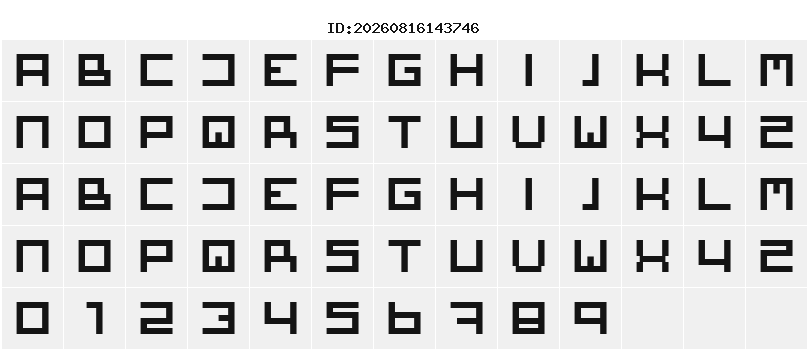
Square One Preview
• Font Name: Square One
• Full Font Name: Square One
• Designer: David Kerkhoff
• Manufacturer: David Kerkhoff
About Square One.ttf
Square One.ttf is a modern, elegant sans-serif font designed for ultimate readability and visual harmony. Perfect for branding, headlines, web design, and print materials.